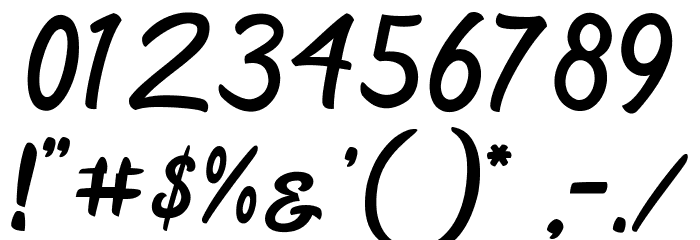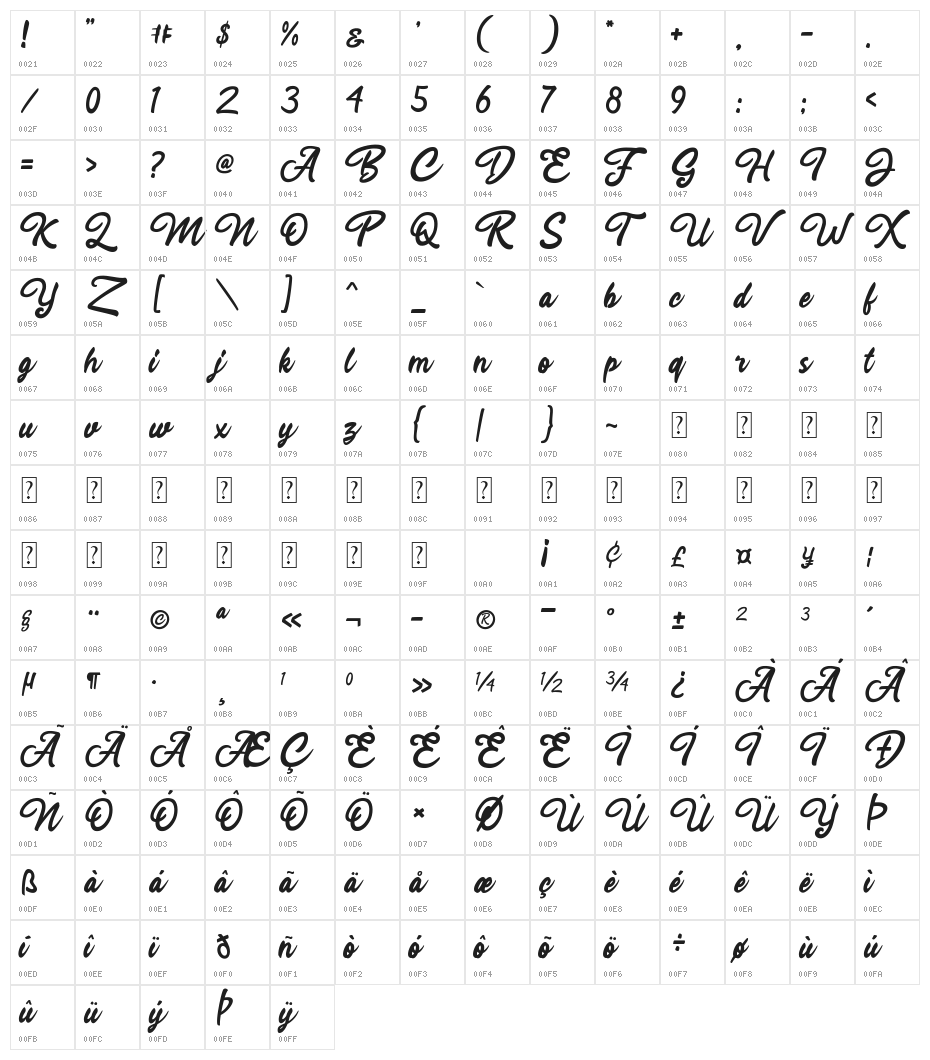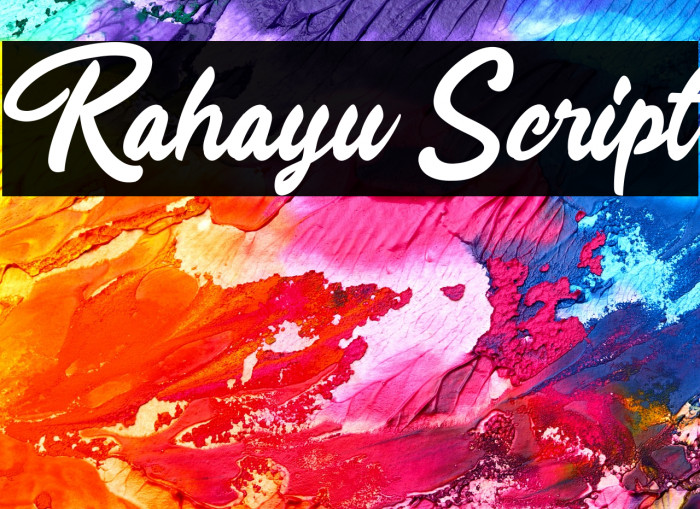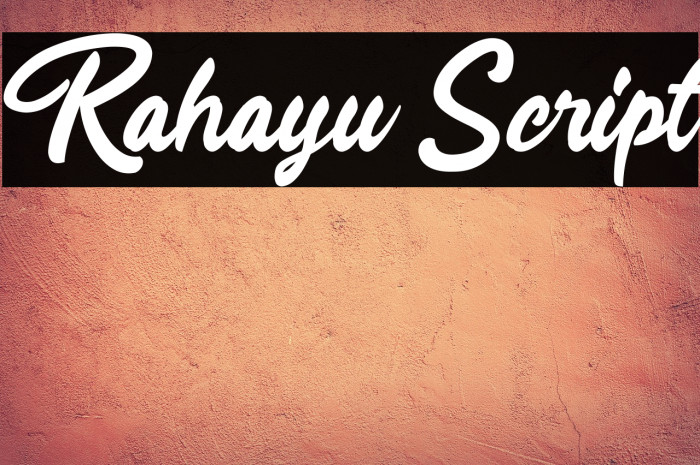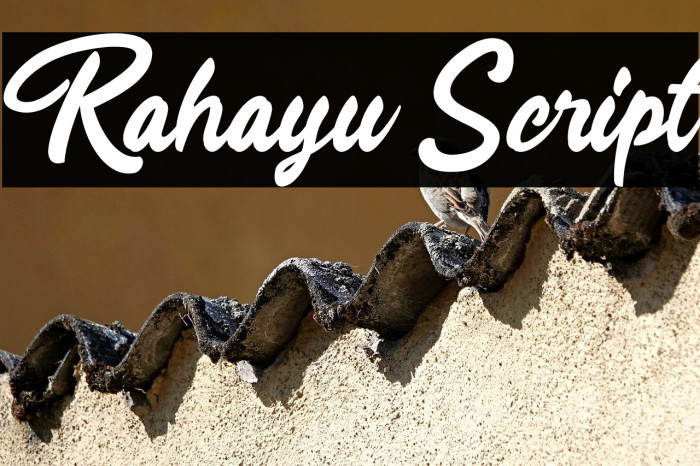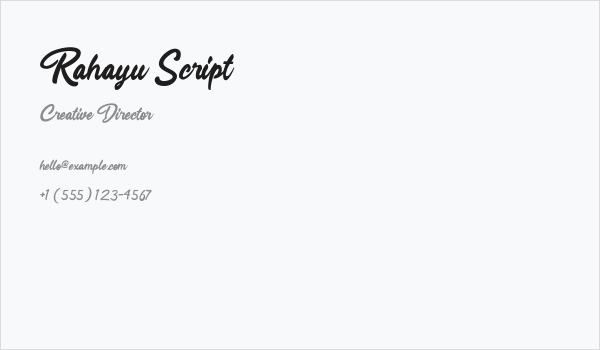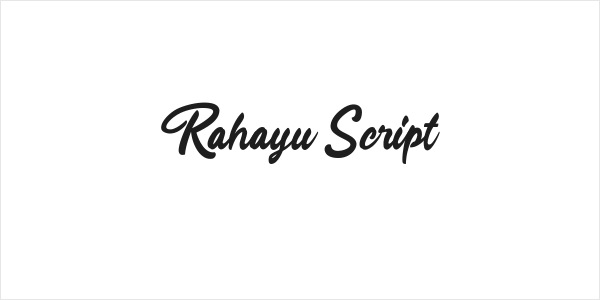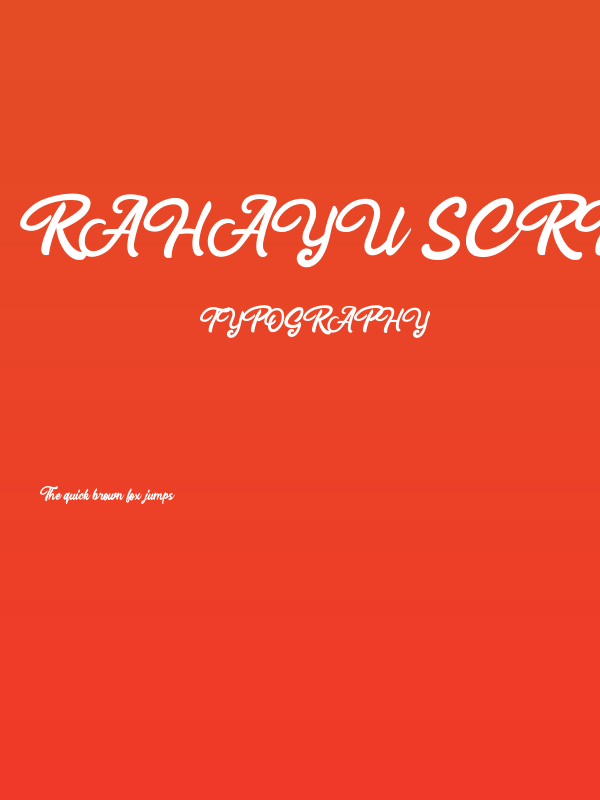
Rahayu Script Font
Rahayu Script Description
This script font features elegant, flowing strokes that emulate the fluidity of handwriting. The uppercase letters are characterized by their graceful loops and curves, creating a sense of movement and sophistication. The lowercase letters maintain a consistent style, with smooth connections between each character, enhancing readability while preserving the script's artistic flair. The numerals are designed to match the overall aesthetic, with a slight slant and rounded edges. Special characters are thoughtfully integrated, maintaining the font's cohesive look. This font is ideal for projects that require a personal touch, such as invitations, greeting cards, or branding materials.
| Use Case | Headlines, Invitations, Branding |
| Proposed Projects | Ideal for wedding invitations, greeting cards, personal branding, and artistic projects. |